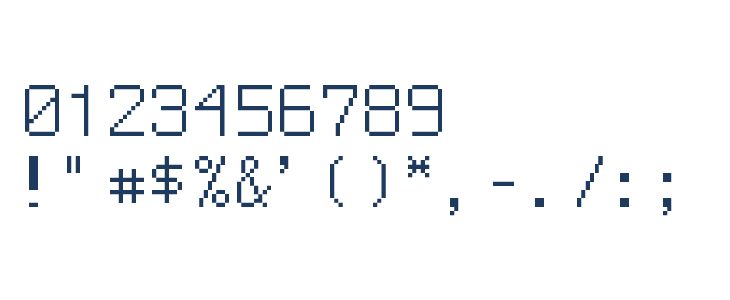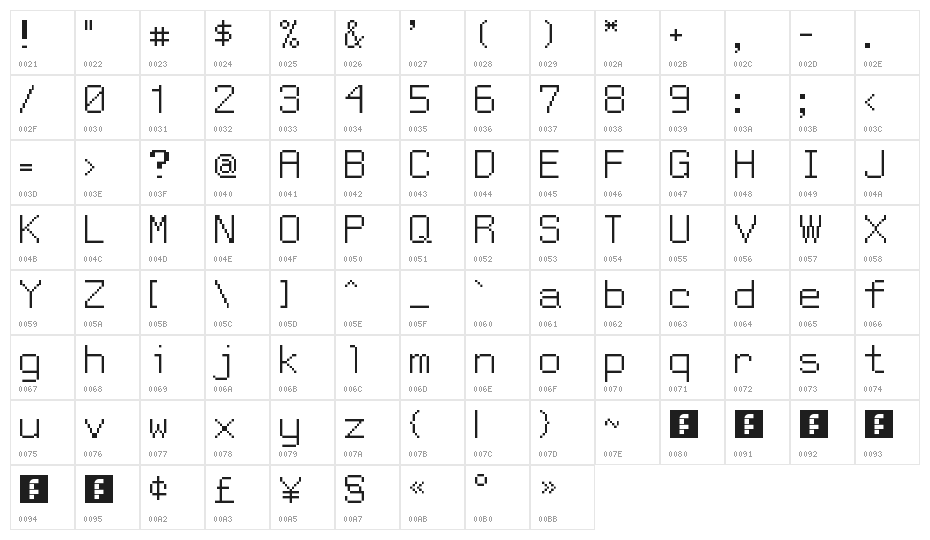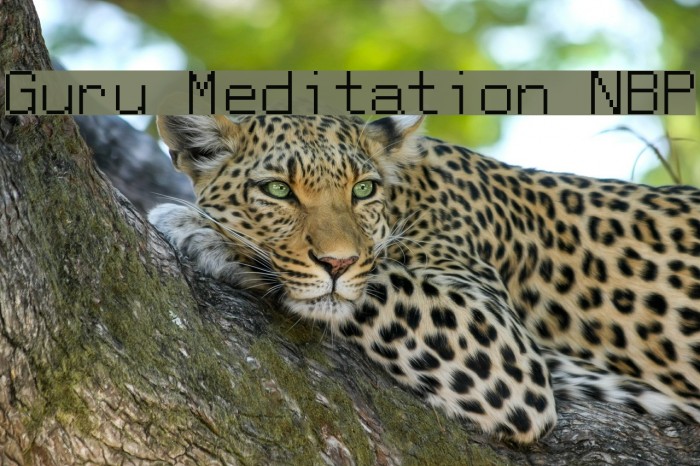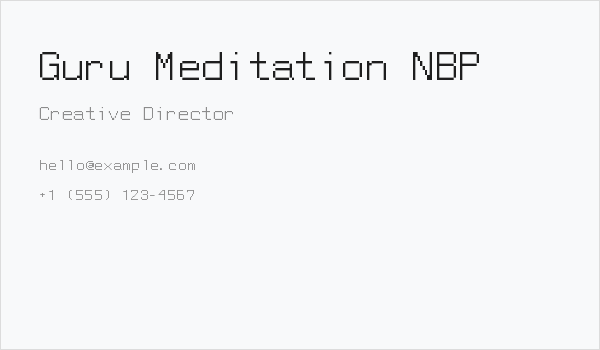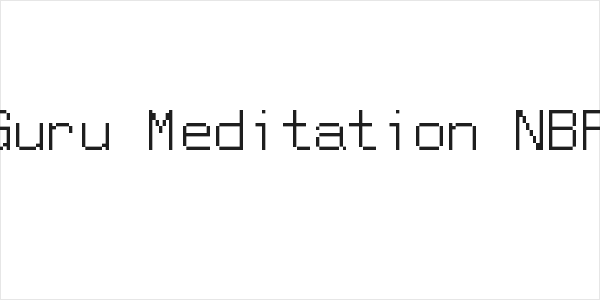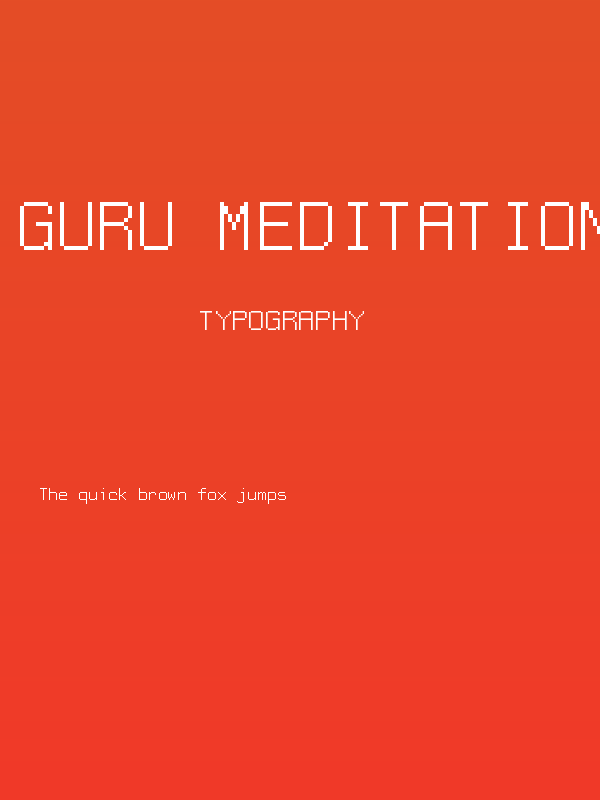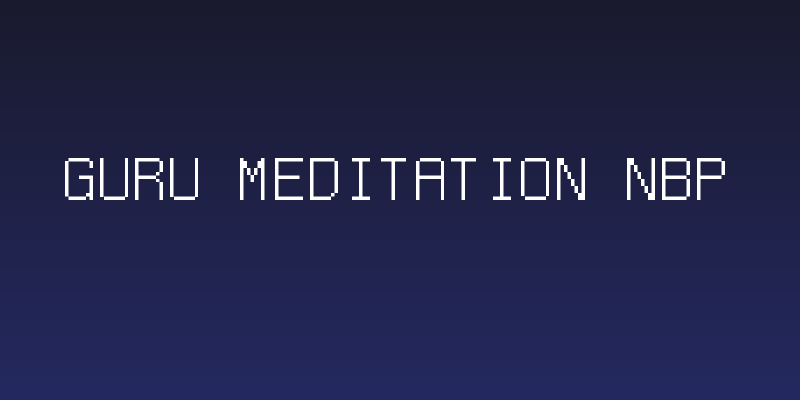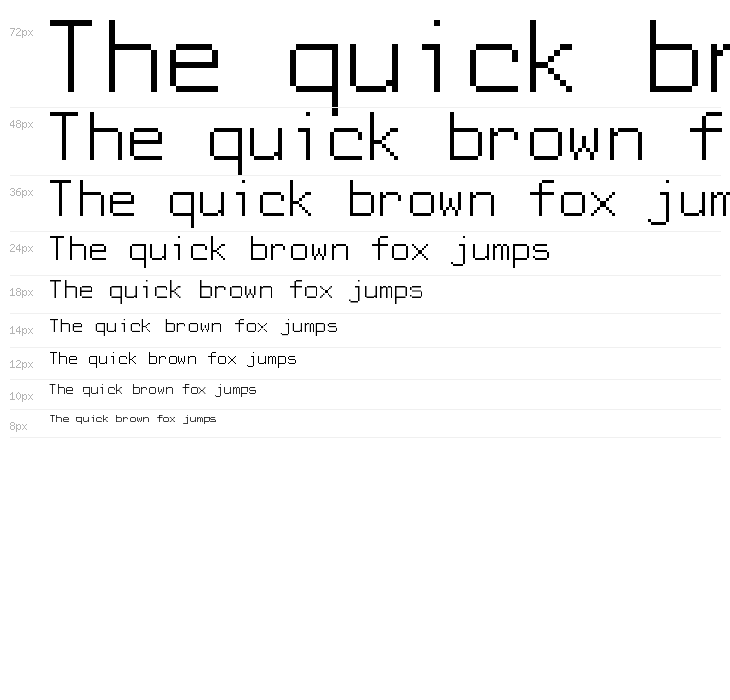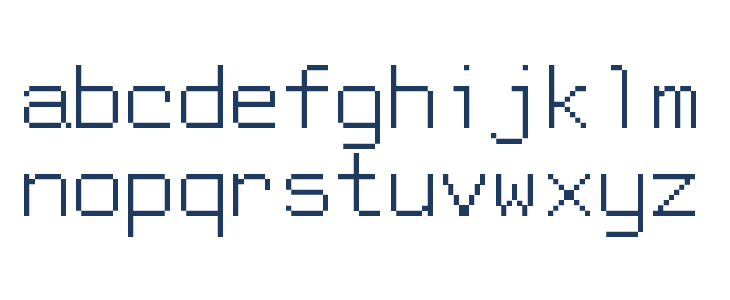
Guru Meditation NBP Font
Guru Meditation NBP Description
This font features a pixelated, monospaced design reminiscent of early digital displays and retro computing aesthetics. Each character is constructed with a grid-like precision, giving it a distinctly technical and mechanical feel. The uniformity in character width ensures a consistent and orderly appearance, making it ideal for coding and digital interfaces. The uppercase and lowercase letters maintain a clear distinction, while the numerals and special characters are easily recognizable, enhancing readability. This font's nostalgic charm is perfect for projects that aim to evoke a sense of vintage technology or retro gaming.
| Use Case | Digital interfaces, Coding, Retro-themed designs |
| Proposed Projects | Ideal for retro gaming interfaces, coding environments, tech-themed designs, and digital art projects. |